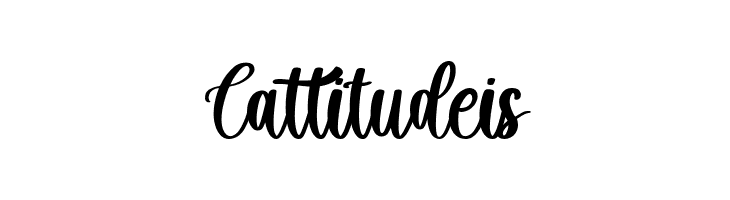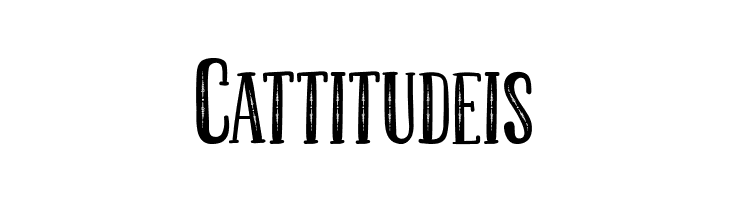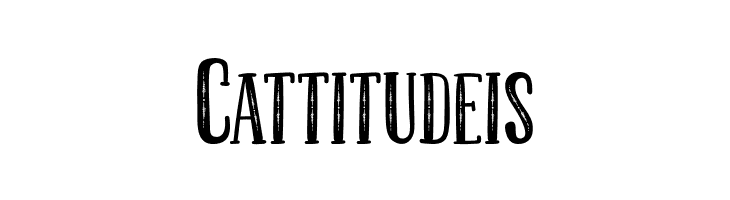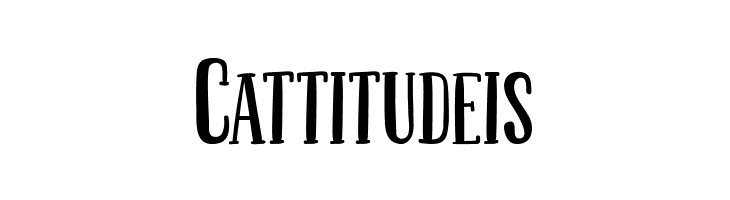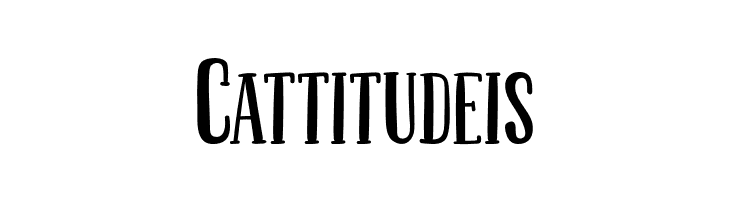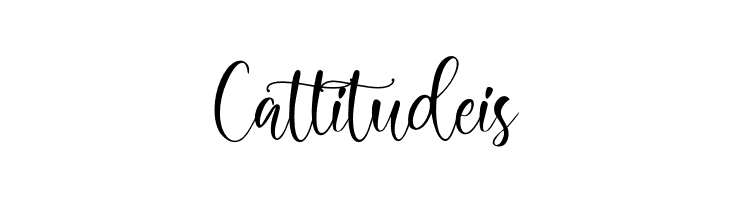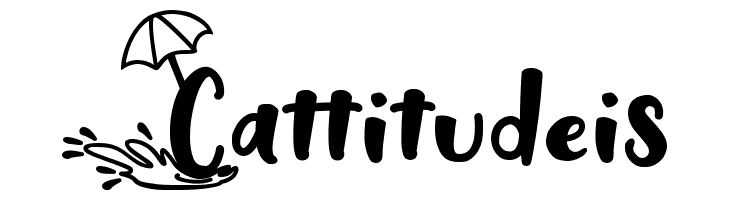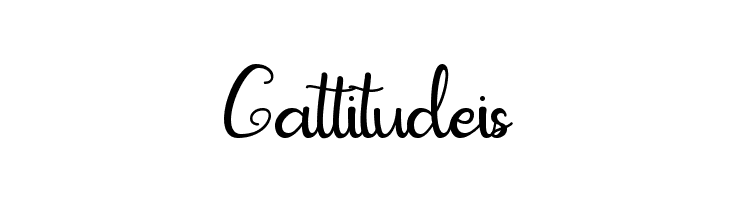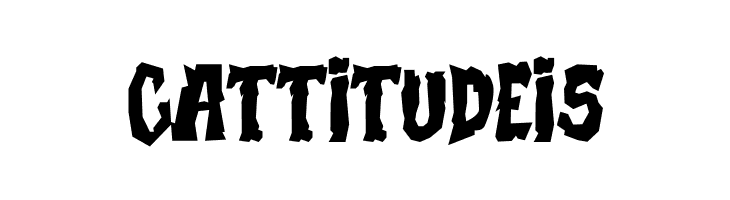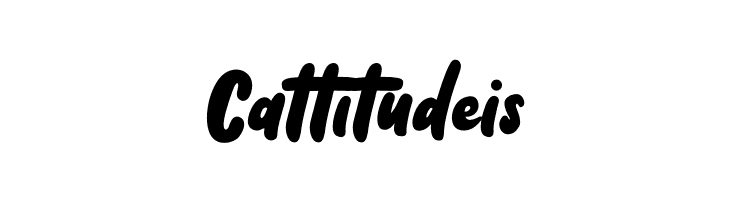
A bold, expressive handwritten font with dynamic strokes and a playful vibe.
A bold, distressed font with sharp, angular edges and a rebellious aesthetic.
A lively and elegant script font with flowing, interconnected strokes.
A playful, bold handwritten font with rounded, casual letterforms.
A playful, handwritten font with elegant loops and curls.
A bold, playful handwritten font with rounded edges and a smooth flow.
An elegant and sophisticated cursive font with graceful loops and swirls.
A playful, flowing script font with elegant, cursive letterforms.
A playful, vintage-inspired font with tall, narrow letters and a hand-drawn feel.
A textured, vintage-style font with a rustic, handcrafted appearance.
A playful, summer-themed font with beach motifs and a casual, handwritten style.
Playful and modern handwritten font.
A bold, playful handwritten font with rounded, slightly irregular letterforms.
A playful, handwritten font with tall, narrow letters and rounded edges.
A bold, playful font with a hand-drawn aesthetic and dynamic stroke variations.
A bold, textured font with a vintage, distressed style.
A dynamic, flowing script font with a natural handwriting style.
A bold, jagged font with an eerie, horror-inspired design.
A playful, spooky font with a hand-drawn, irregular style.
A bold, dynamic script font with a handwritten style.
A playful, hand-drawn font with a whimsical and casual style.
A bold, gothic-inspired font with sharp serifs and a dramatic flair.
A horror-themed font with a dripping, blood-like effect and sharp serifs.
A bold, shadowed font with a three-dimensional effect.
A horror-themed font with a dripping, blood-like effect and sharp serifs.
A hand-drawn, sketch-like font with jagged lines and an edgy appearance.
A bold, hand-drawn font with a chaotic, sketch-like style.
A playful handwritten font with a casual and friendly style.
A modern, outlined font with clean lines and geometric structure.
A bold, italic, and modern font with a futuristic and dynamic style.
A modern, hollow, outlined font with a futuristic and geometric style.
A modern, hollow, inverse font with geometric and futuristic design.
A modern, geometric font with a futuristic and symmetrical design.